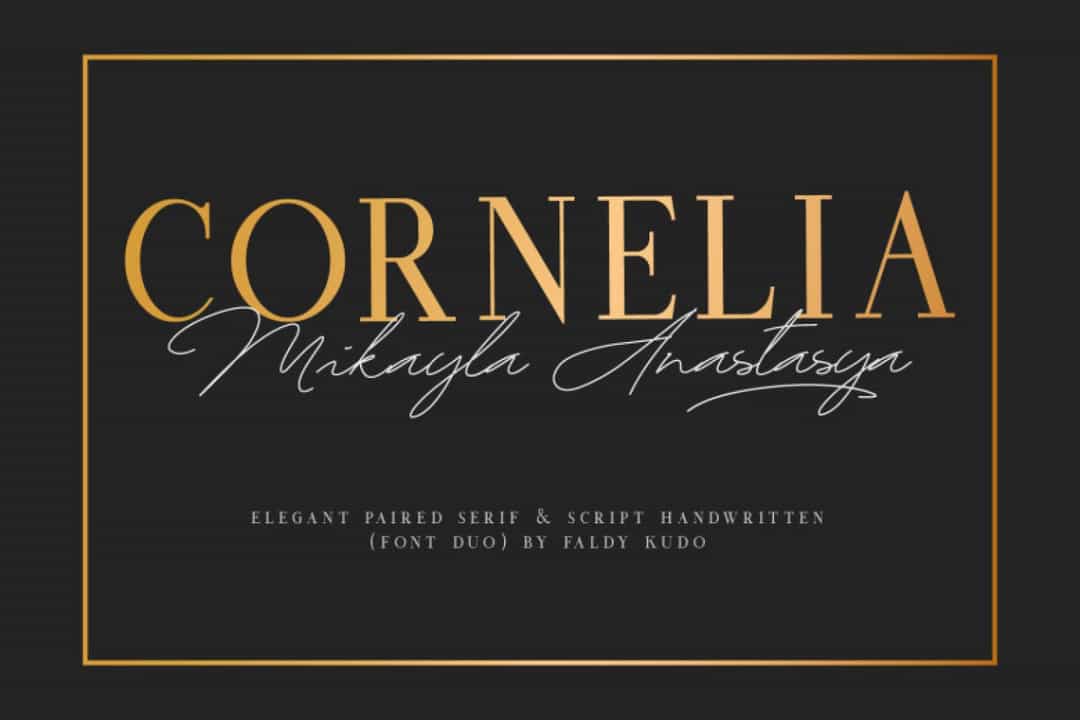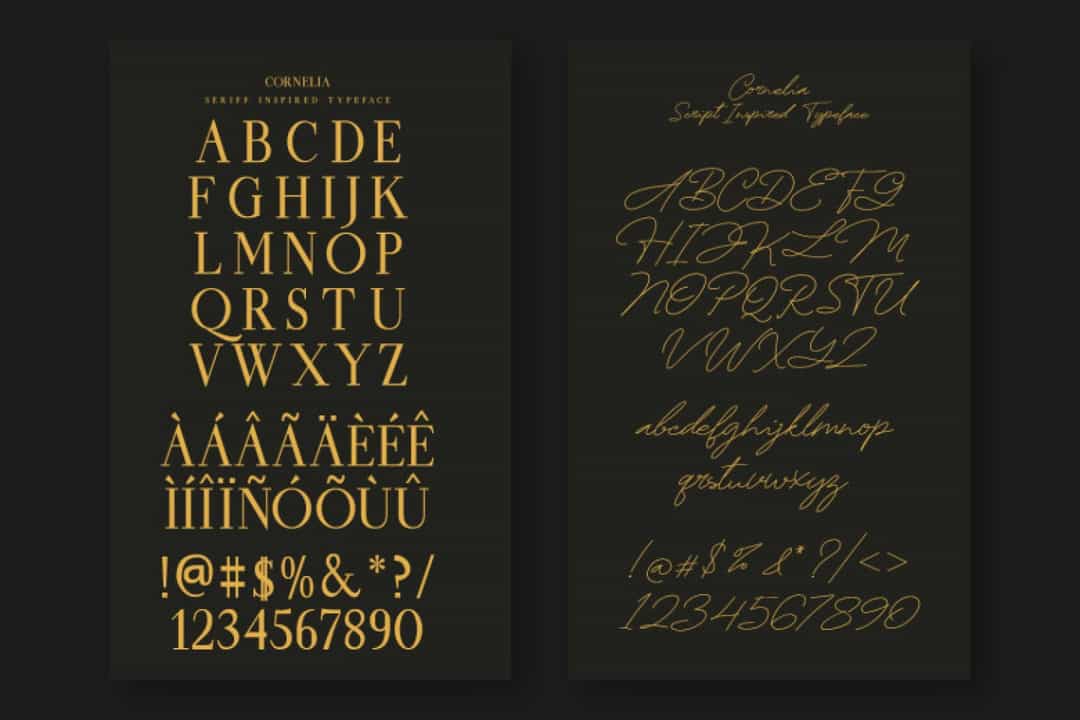
Cornelia is a font that is highly versatile, that can be used for styles and can be changed into a beautiful and stylish font due to the presence of numerous variants and ligatures. It makes it easier for you to dictate the mood and feel of your design since slight changes can make a huge difference. Bring out the artist in you with Cornelia to give life to all your design concepts.